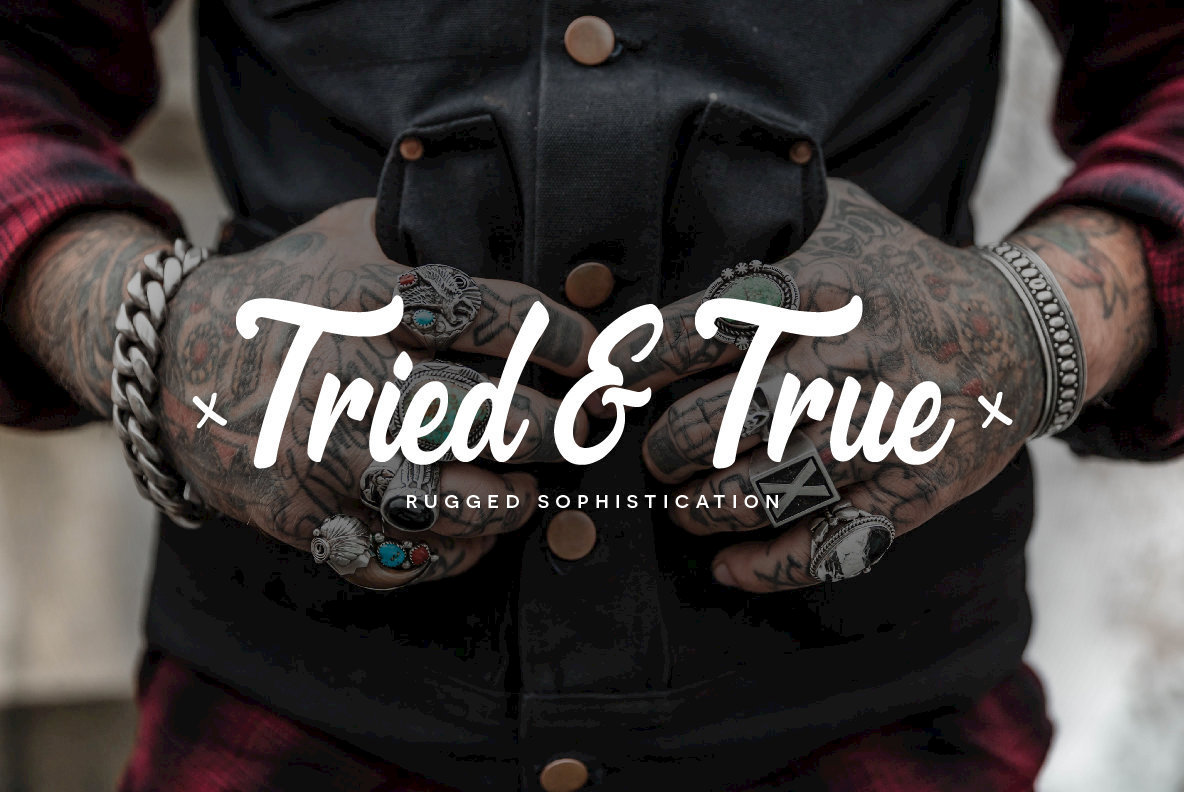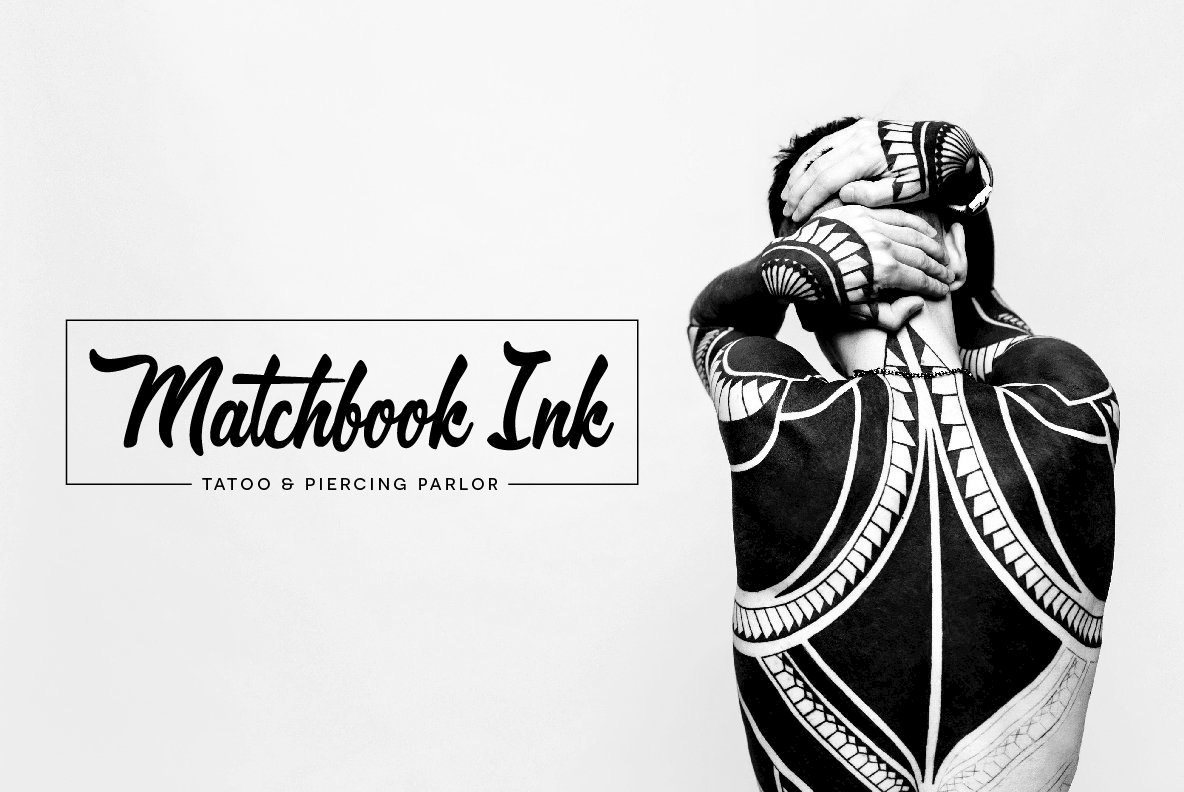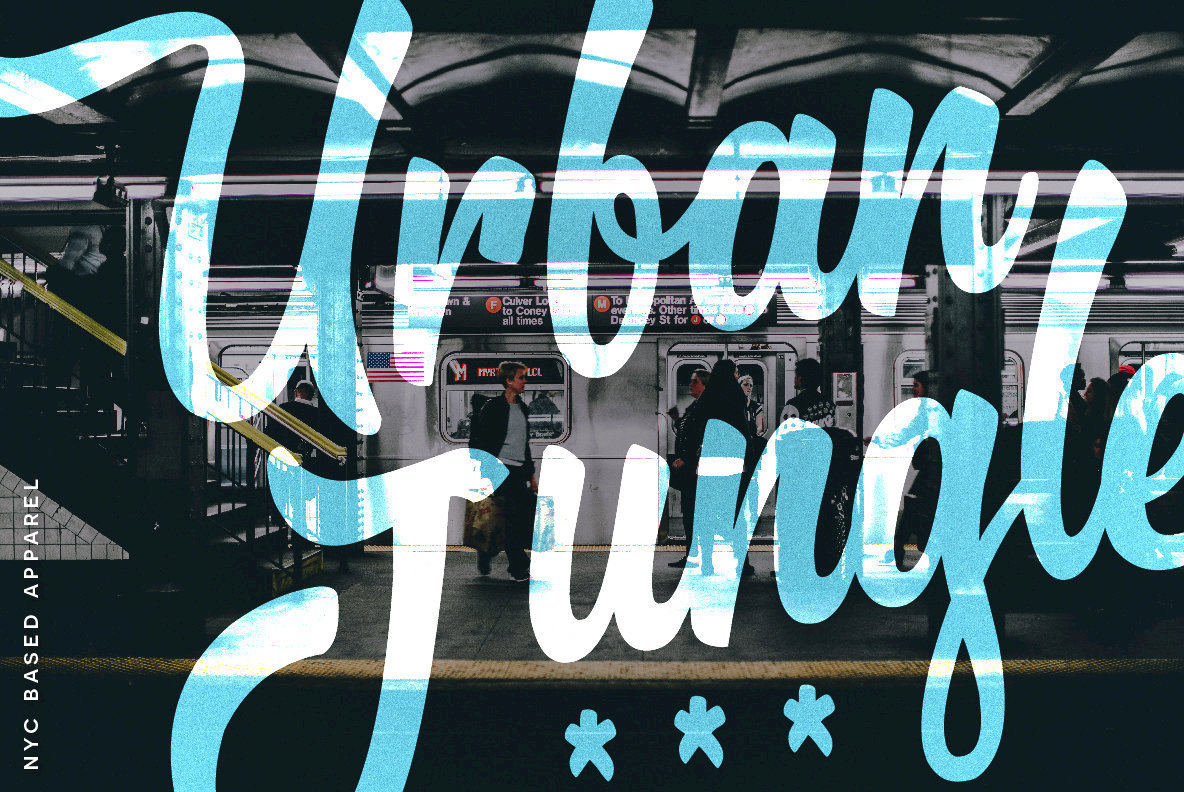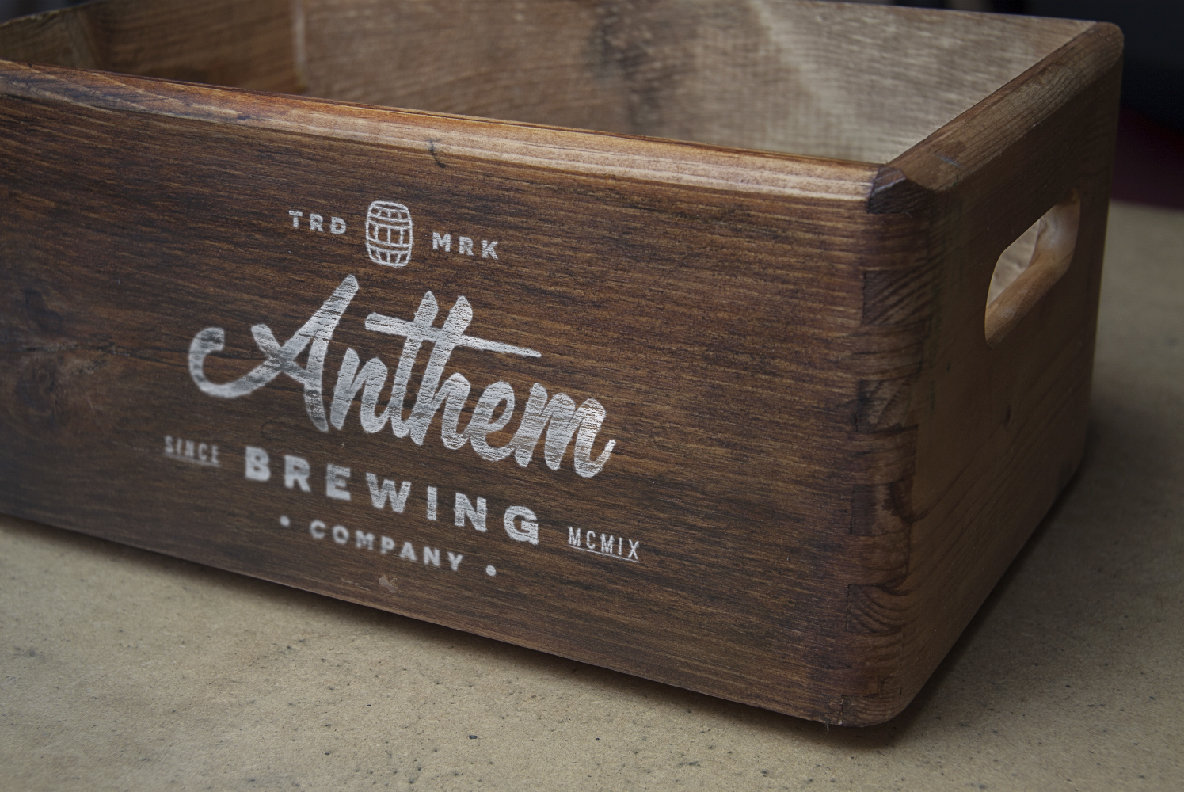
Brooklyn Script: Stylish Script Inspired by Tattoo Art
Brooklyn Script is a font steeped in the rebellious spirit of an urban tattoo parlor, offering a confident, unique touch to design projects. With its dynamic curves and a striking contrast in brush strokes, this script font is poised to inject life and personality into logos, prints, posters, and beyond. Its expressive form captures a sense of boldness that stands out, making it an ideal choice for designers yearning to make a distinctive statement.
• Brooklyn Script – A complete font that exudes handcrafted appeal.
• Over 75 Bonus Glyphs – Includes support for international languages, broadening its applicability.